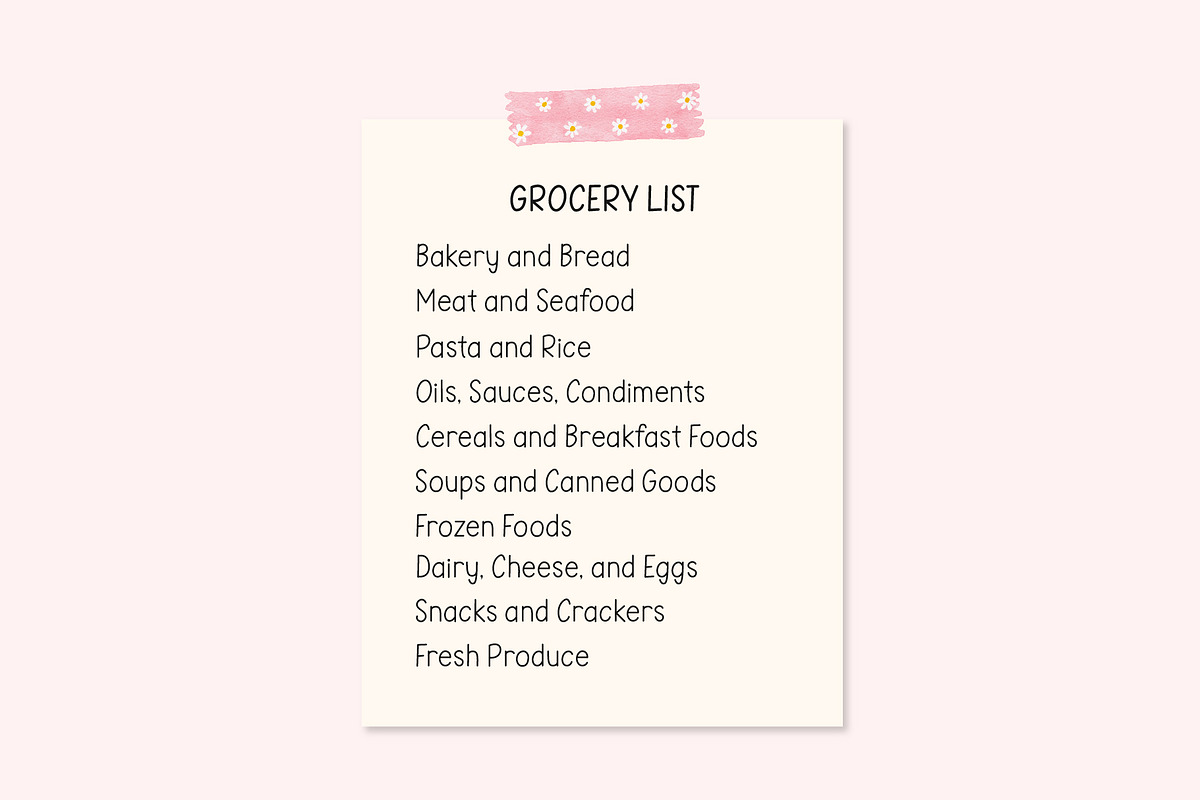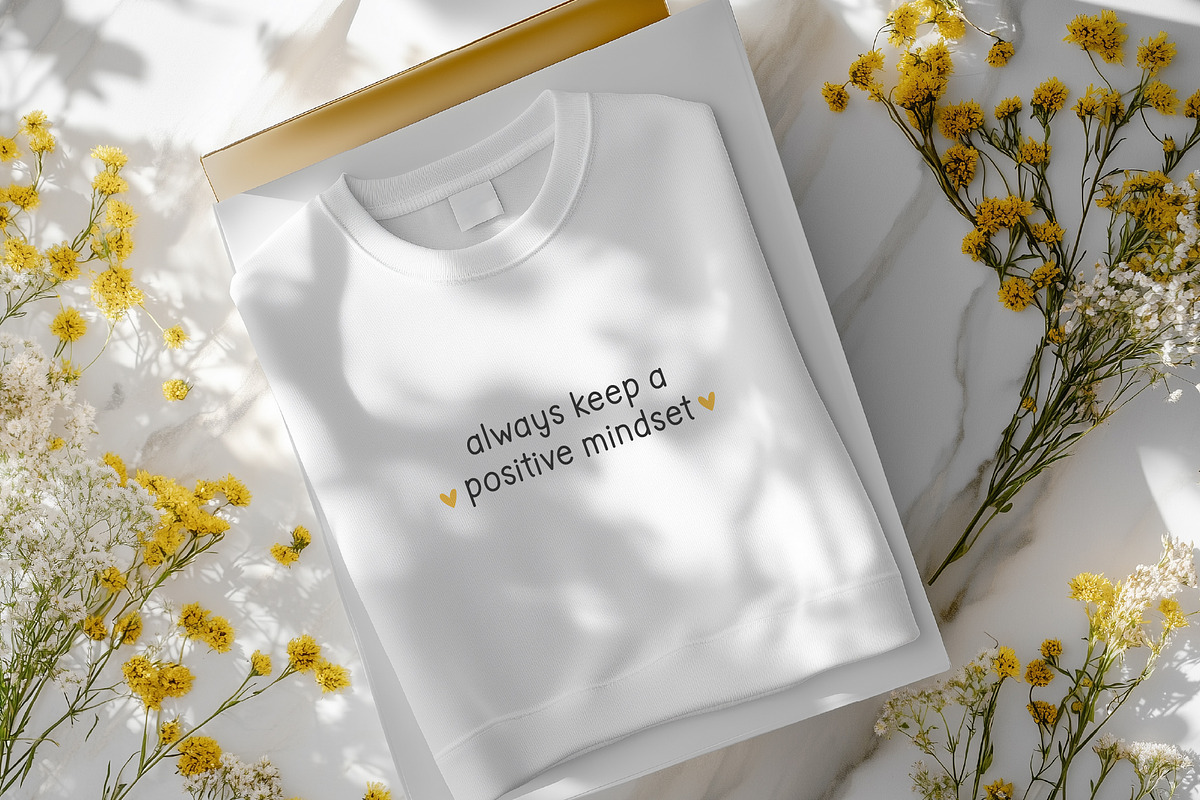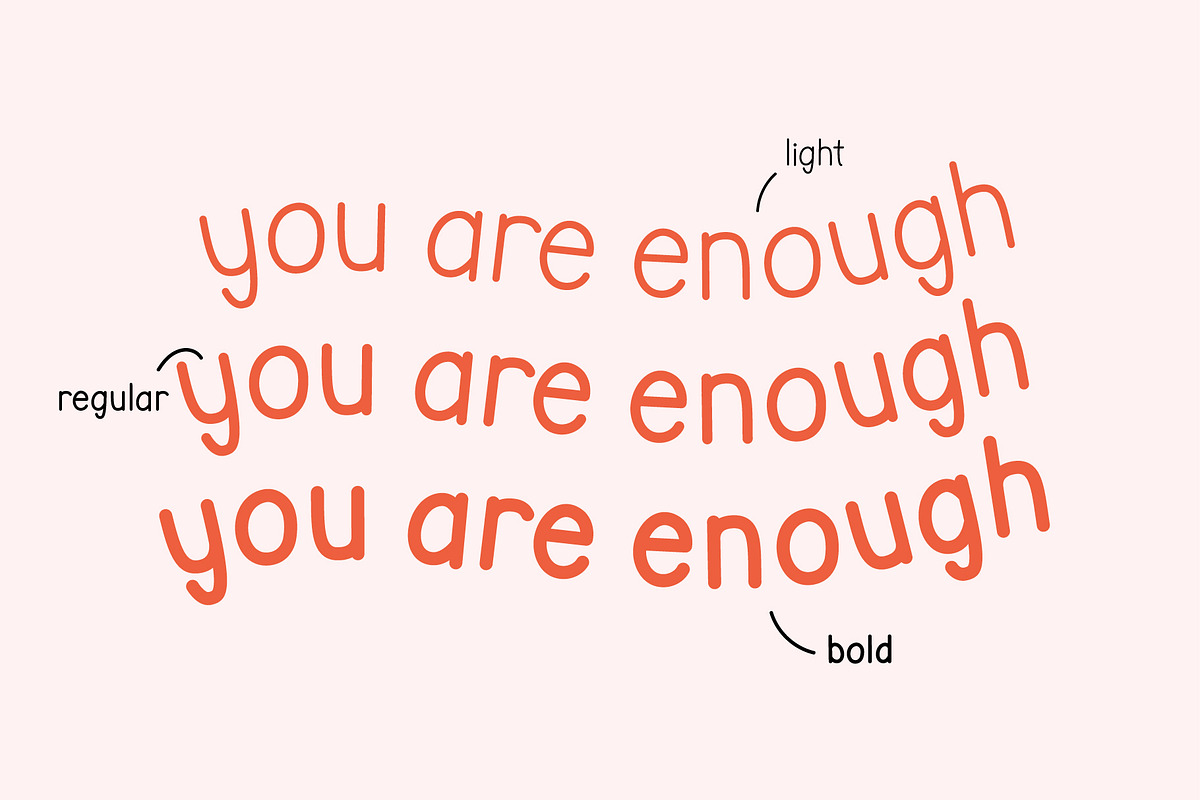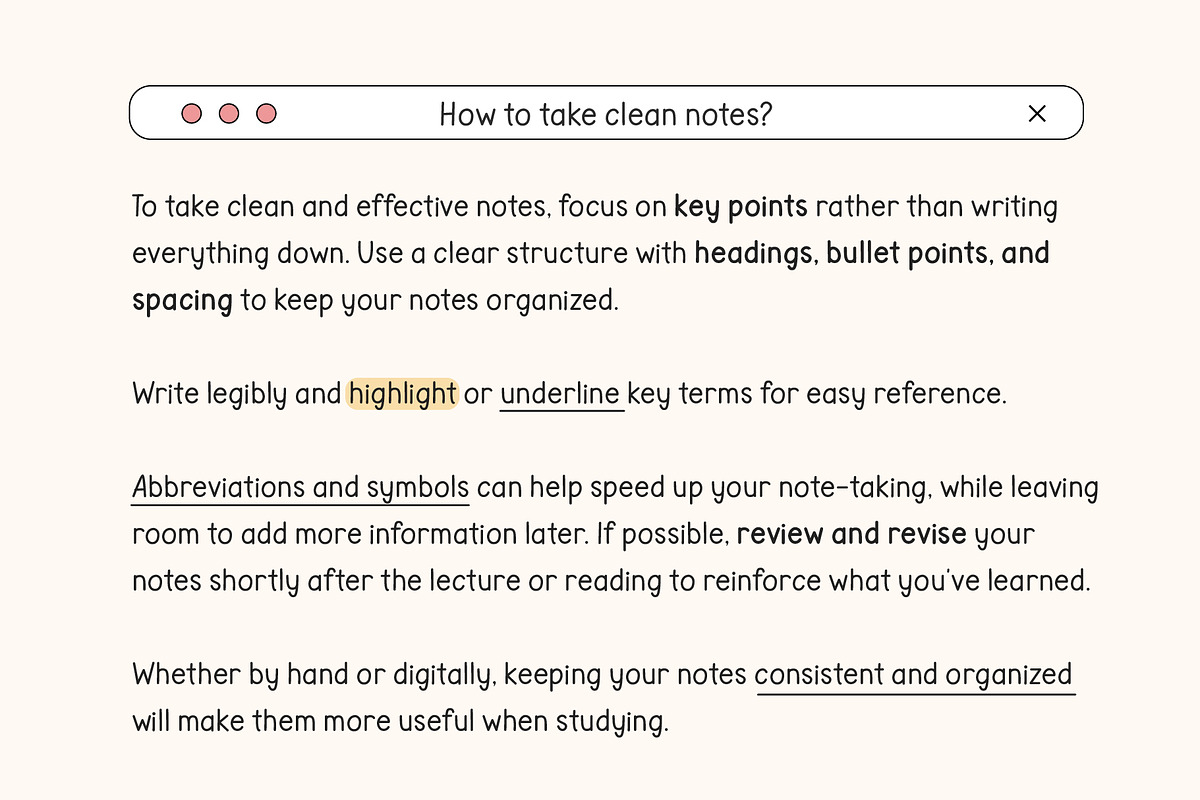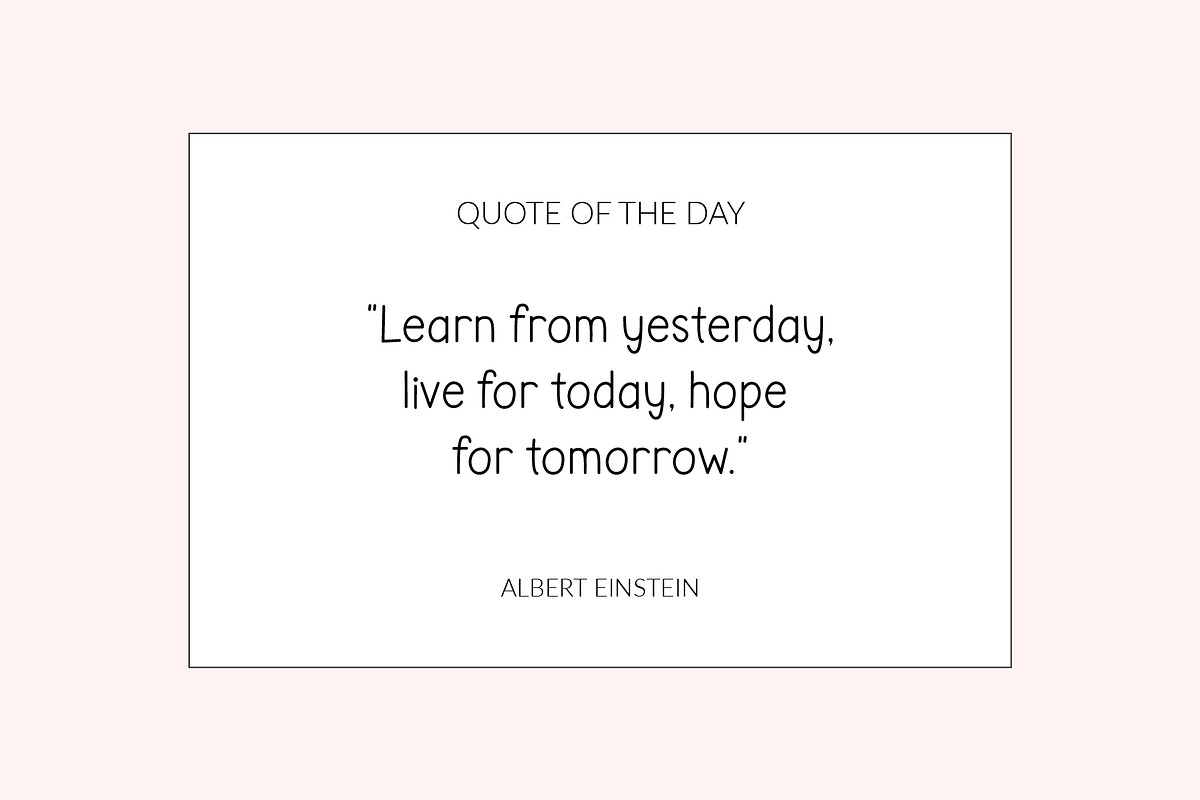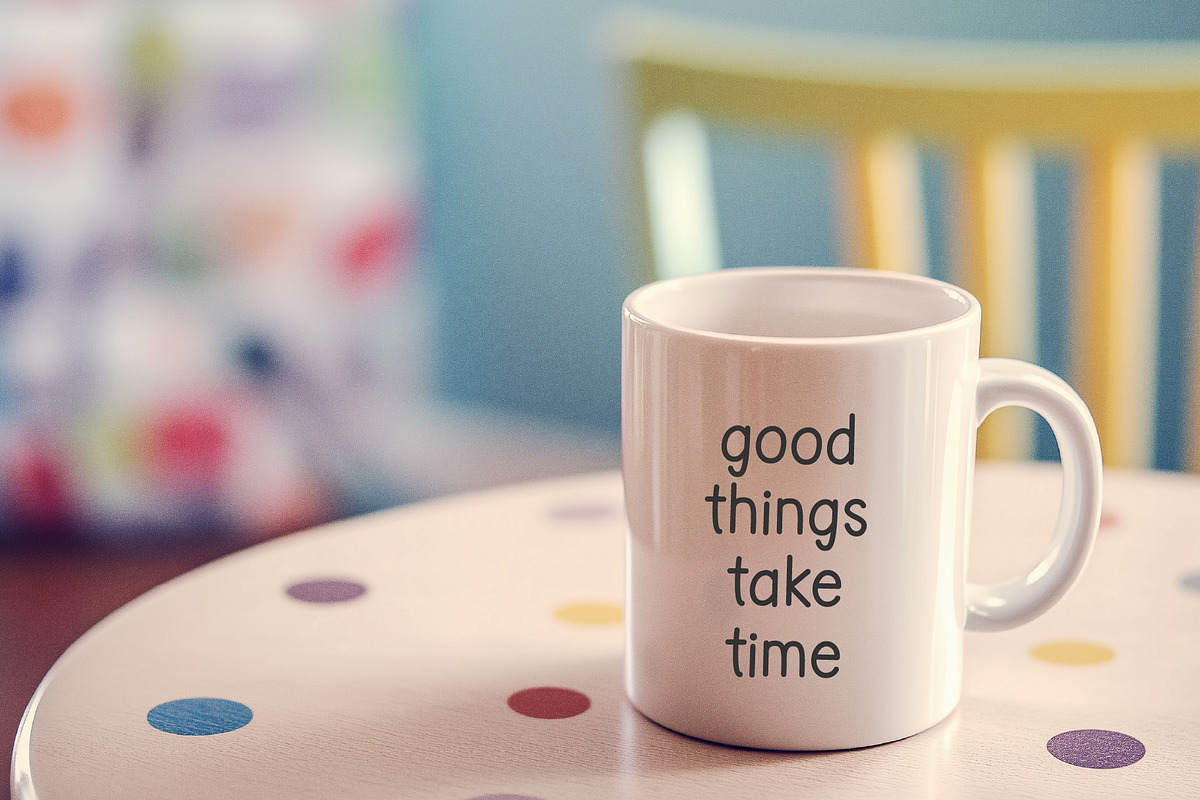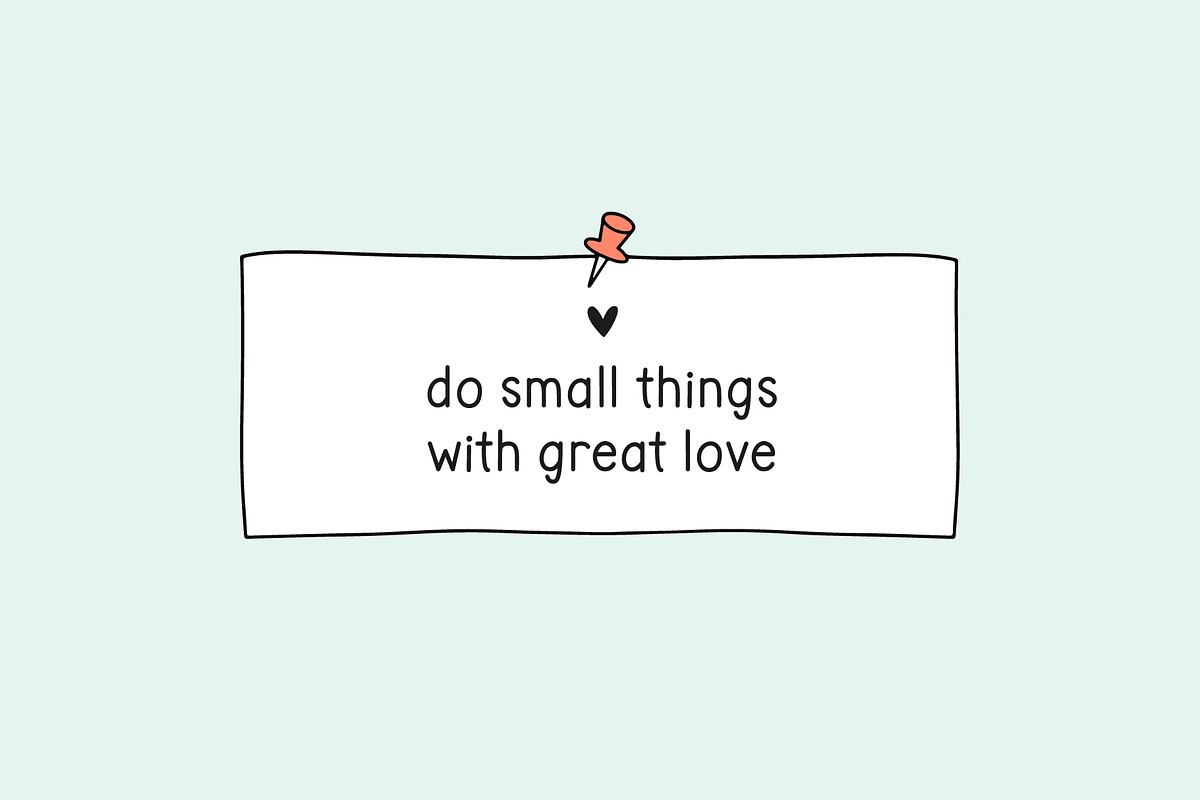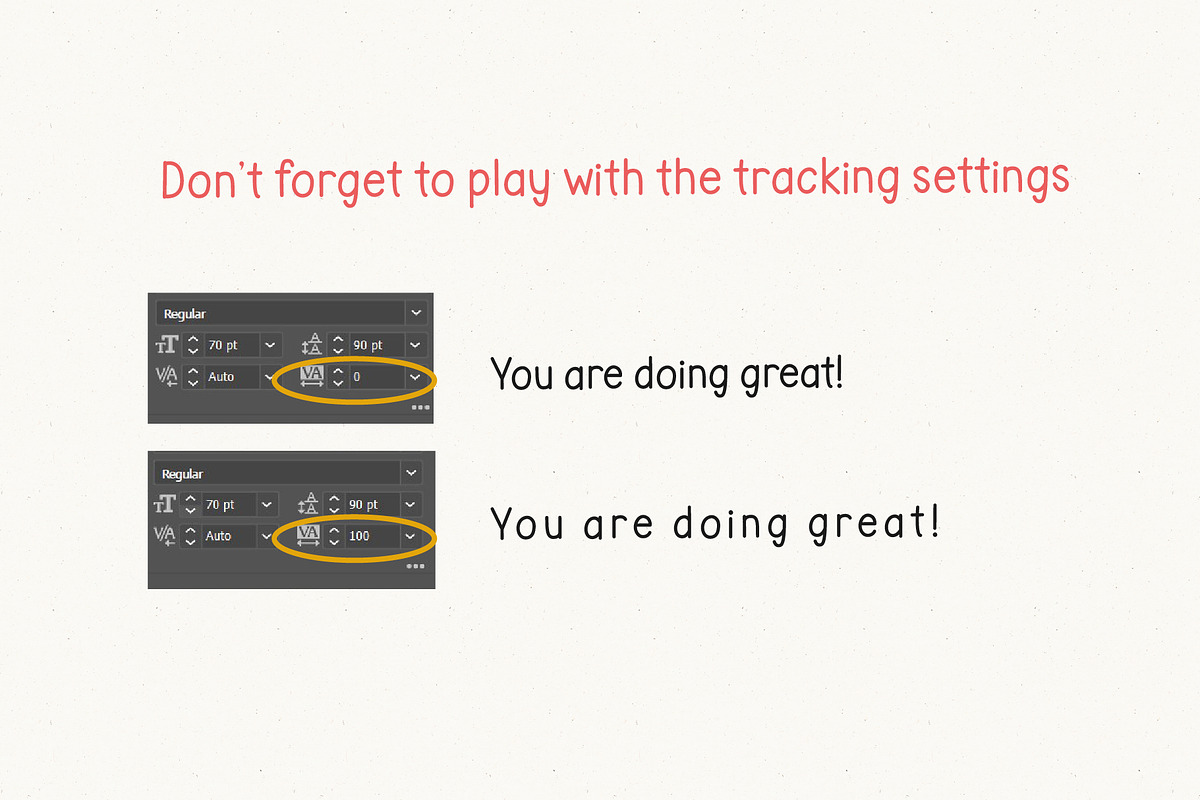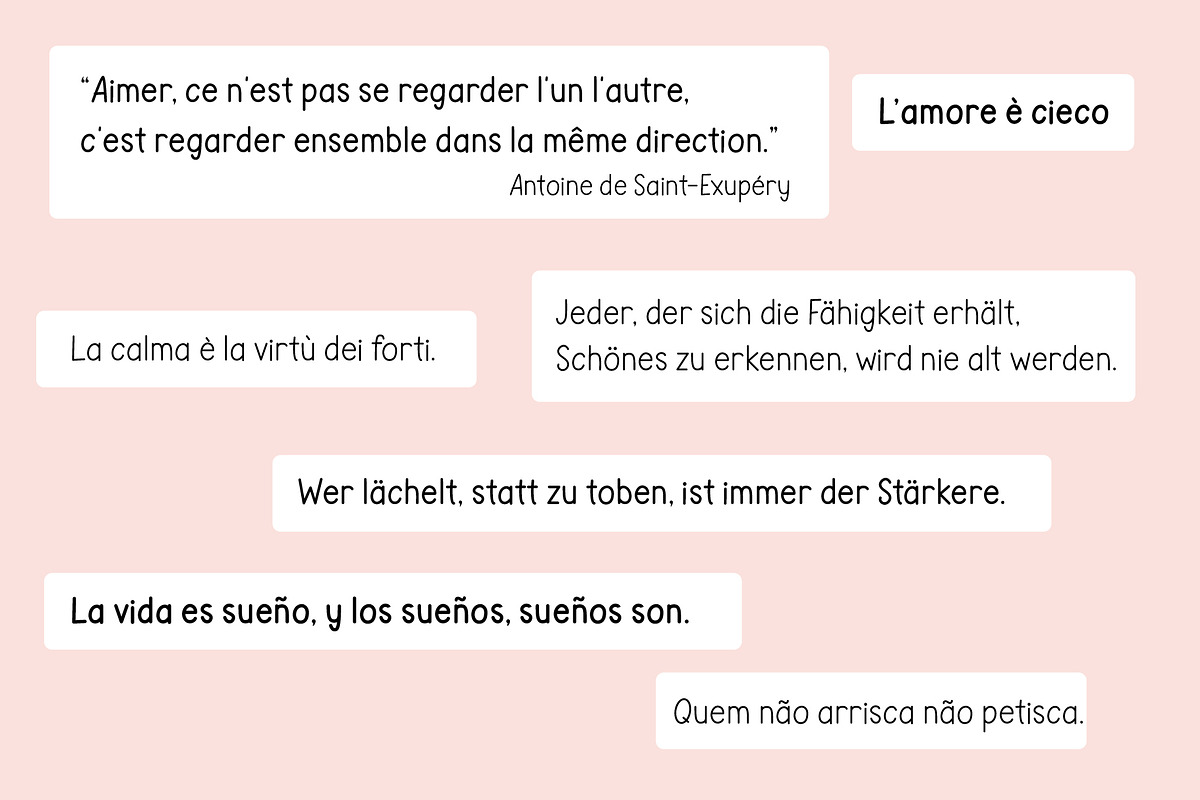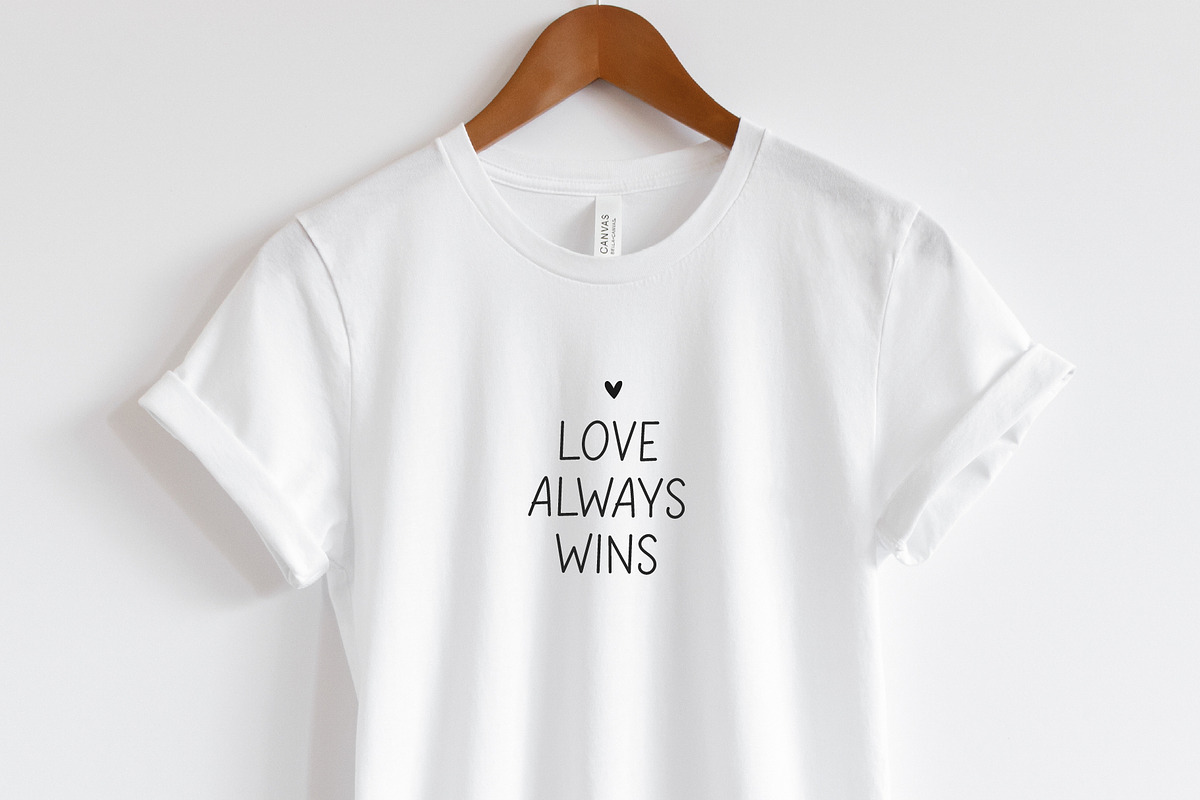
Clean Notes - Neat Handwriting Font
Say hello to Clean Notes, a neat handwriting font. It is great for digital planners, craft projects, invitations, greeting cards, logos, branding, social media, printed goods or anything that requires neat handwritten lettering.
This versatile font comes in three weights—light, regular, and bold— and it has international characters.
FONT FEATURES
• Neat handwriting style
• Standard characters (lowercase, uppercase, numbers, punctuation)
• Multilingual characters:
• 90+ Supported Languages: